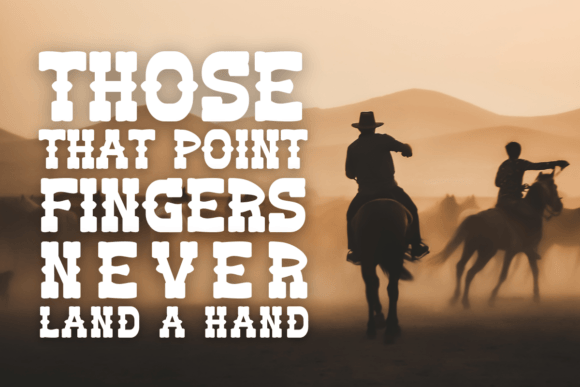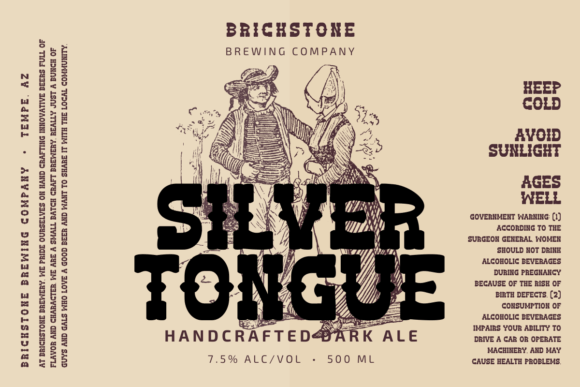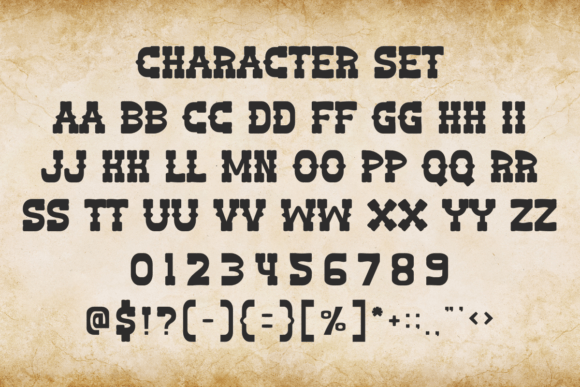
Introduction to Howdy Cowboy Font
Do you remember that moment when you’re browsing through a vintage western town, surrounded by the sounds of cowboys and the smell of leather? That’s the kind of nostalgia and charm that the Howdy Cowboy Font embodies. This bold serif font is a design resource that will transport you back in time, adding a touch of uniqueness to your creative project.
Whether you’re working on a design project that needs an eye-catching headline, a t-shirt typography that stands out, or a product label that screams quality, the Howdy Cowboy Font is an ideal choice. Its wide characters and bold serifs make it perfect for grabbing attention, while its high-quality design ensures that it looks great on any background, whether transparent or not.
Key Features of Howdy Cowboy Font
- Unique Western-inspired design with a mix of vintage and modern elements, perfect for creative projects and design resources.
- High-quality font with transparent background, ideal for use on images, graphics, and other design elements.
- Includes a range of font styles and weights, from bold and distressed to regular and cursive, allowing for flexibility in design applications.
- Perfect for use in various creative projects, including posters, flyers, brochures, and other marketing materials.
- Can be easily combined with other design elements, such as graphics, images, and textures, to create unique and eye-catching designs.
Honest Review: Howdy Cowboy Font
As a designer, I’m always on the lookout for high-quality design resources that can elevate my creative projects. Recently, I came across the Howdy Cowboy Font, and I’m excited to share my honest review.
What works well: ✨ The font is perfect for any project that requires a rustic, country vibe. The font’s unique style and high-quality design make it a great addition to any design resource library. The transparent background also makes it easy to use in various design scenarios.
Some of the key features that I appreciate include:
- High-quality design with a unique, rustic style
- Transparent background for easy use in various design scenarios
- Perfect for country-themed projects or designs that require a vintage feel
Limitations: ⚠️ While the Howdy Cowboy Font is a great resource, it may not be suitable for projects that require a more modern or sleek design aesthetic. Additionally, the font may not be as versatile as some other design resources.
The Howdy Cowboy Font is ideal for a variety of creative projects, including:
- Western-themed designs, such as cowboy-themed posters or logos.
- Rustic or vintage-inspired designs, such as distressed textures or retro-style graphics.
- Outdoor or nature-themed designs, such as park signs or nature-inspired graphics.